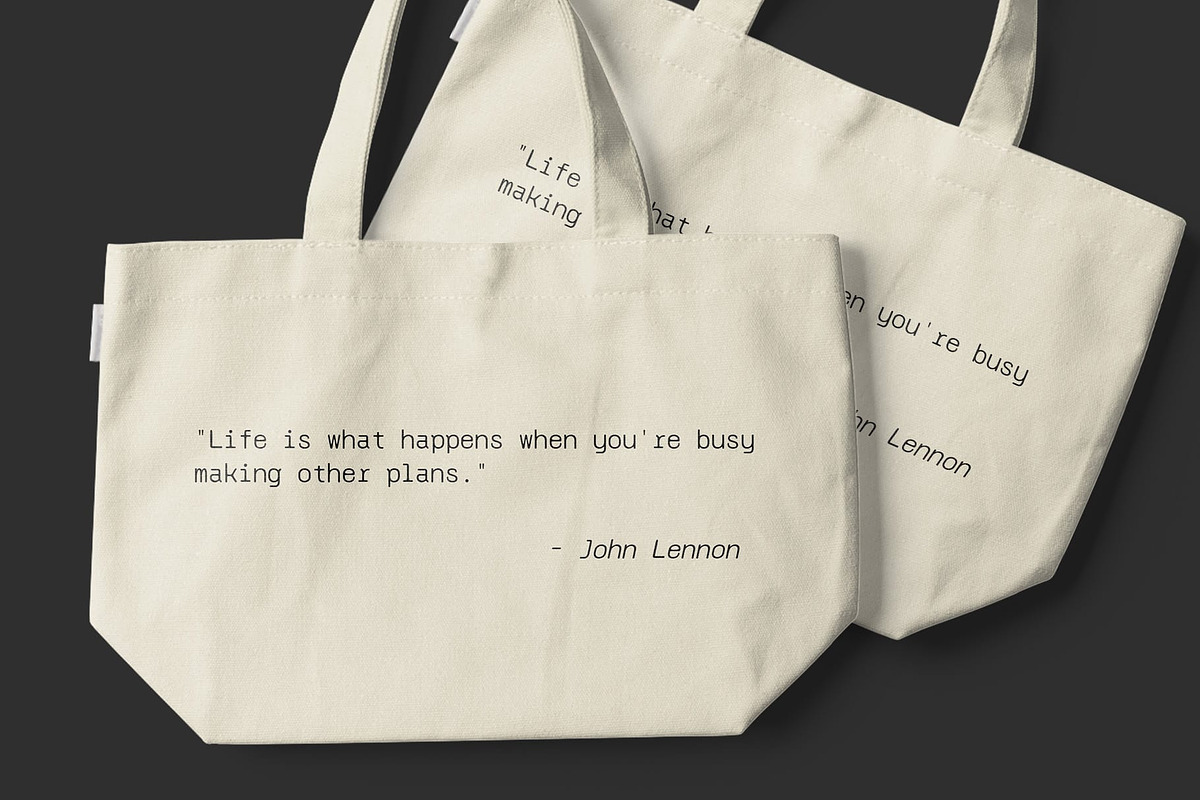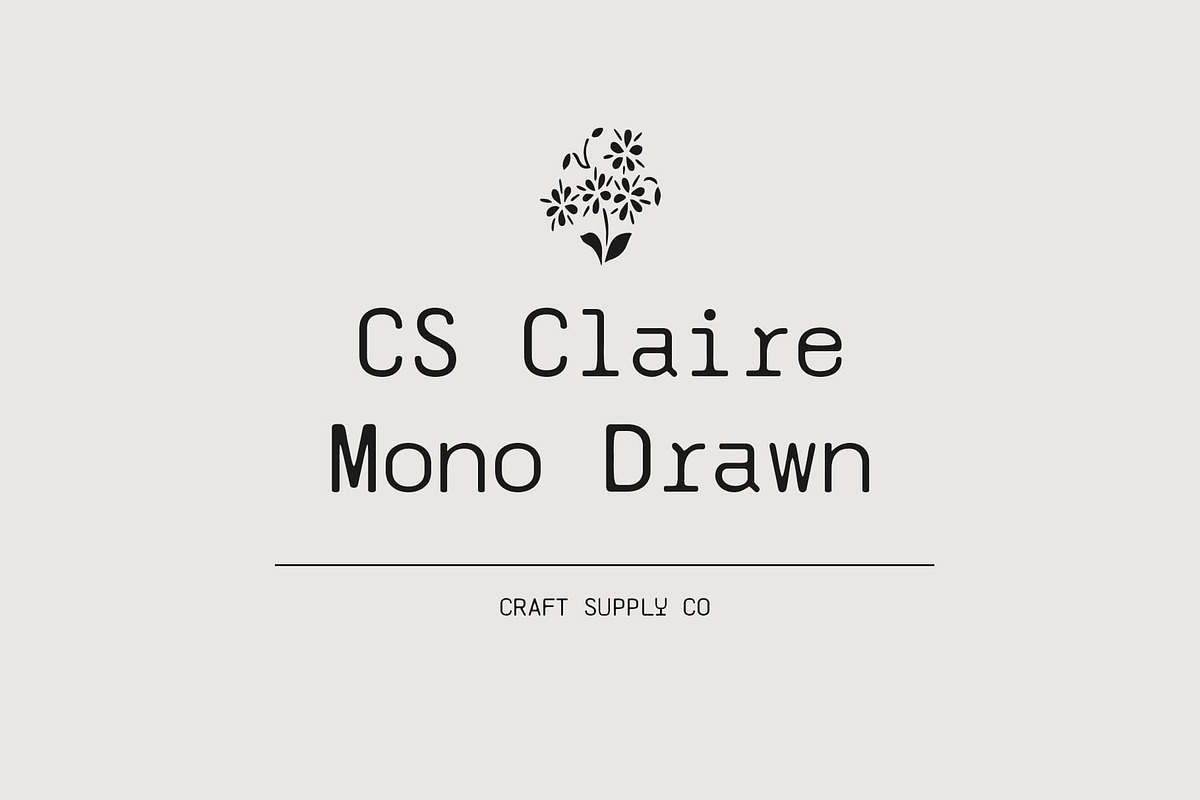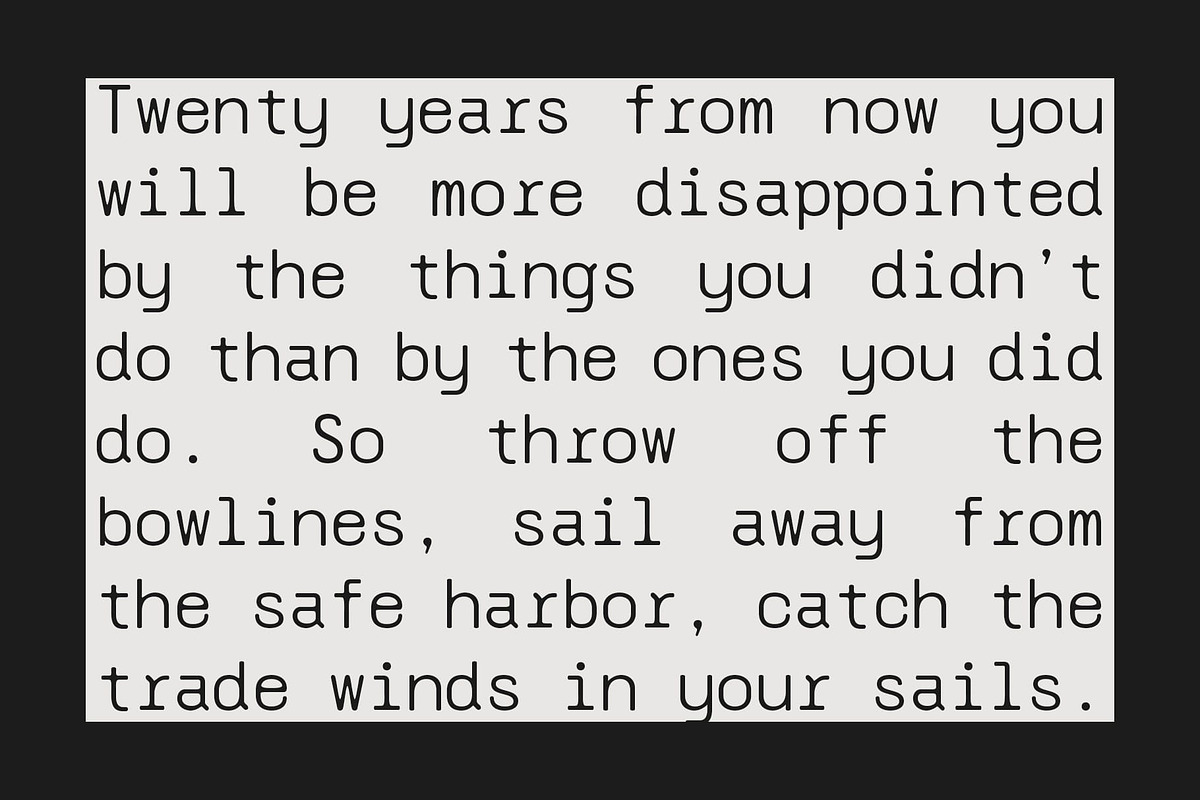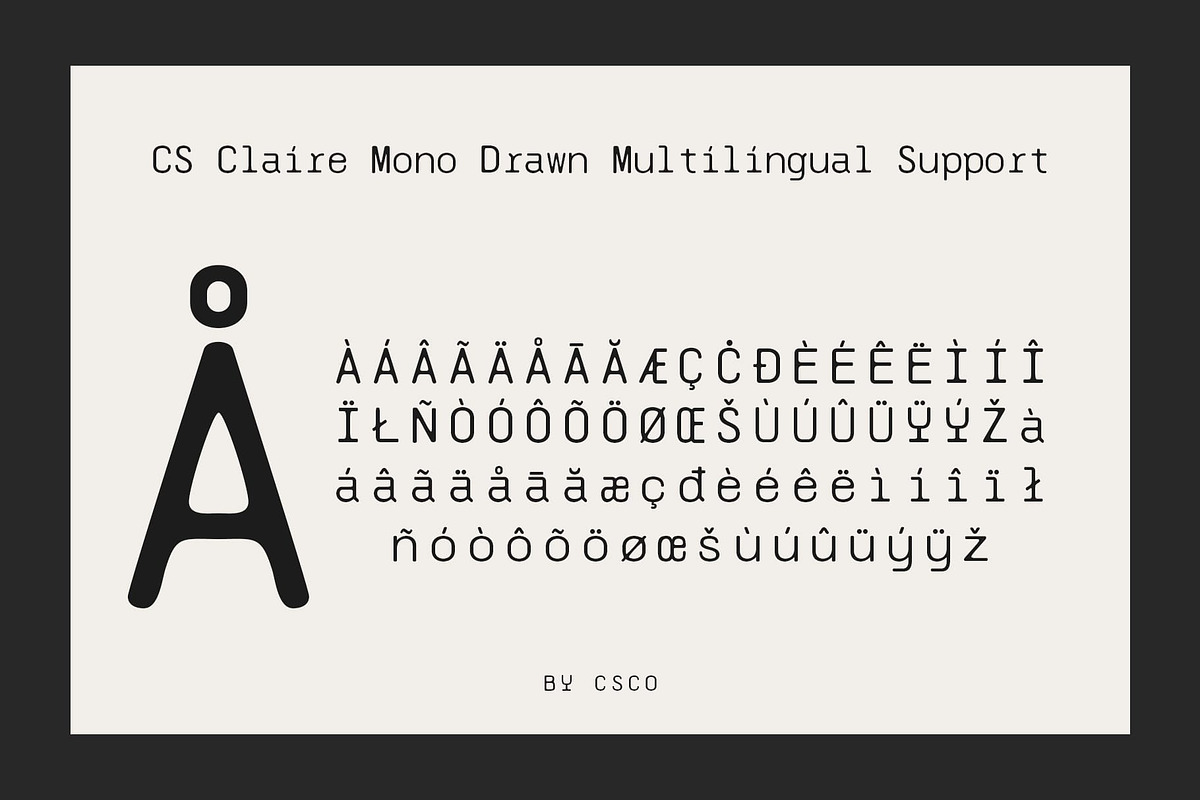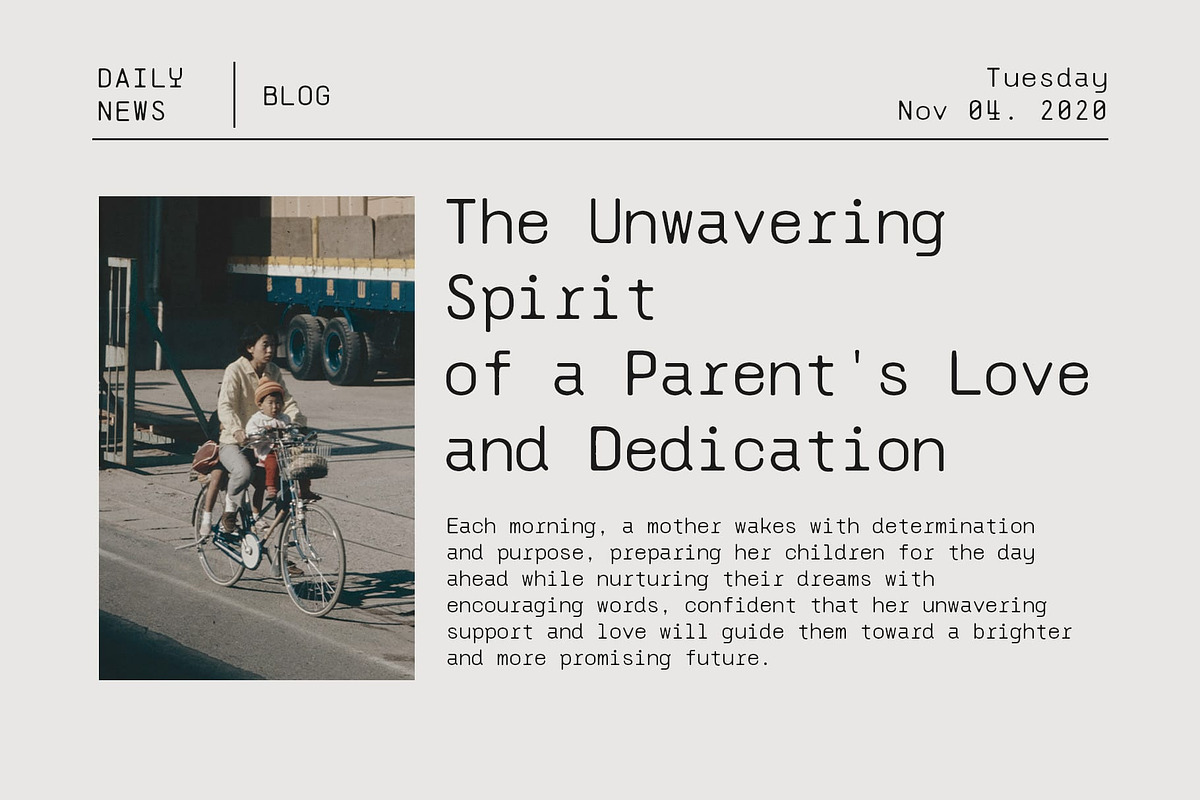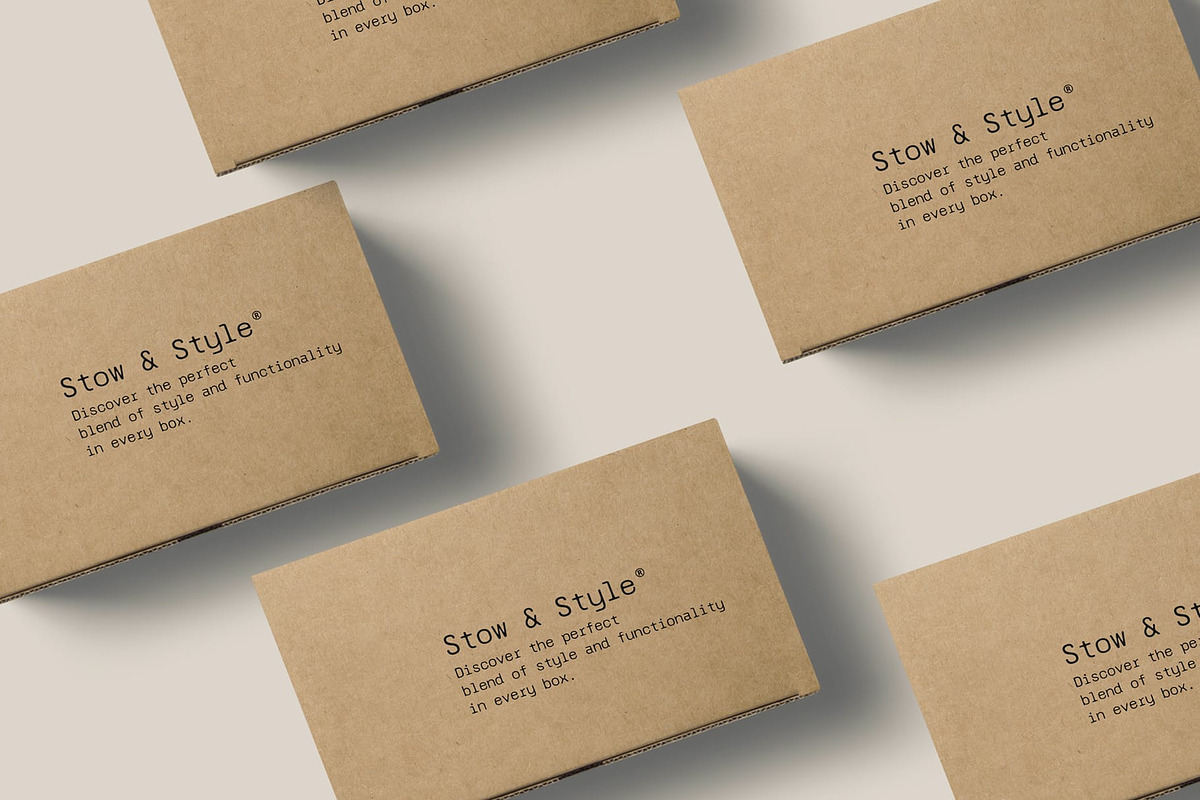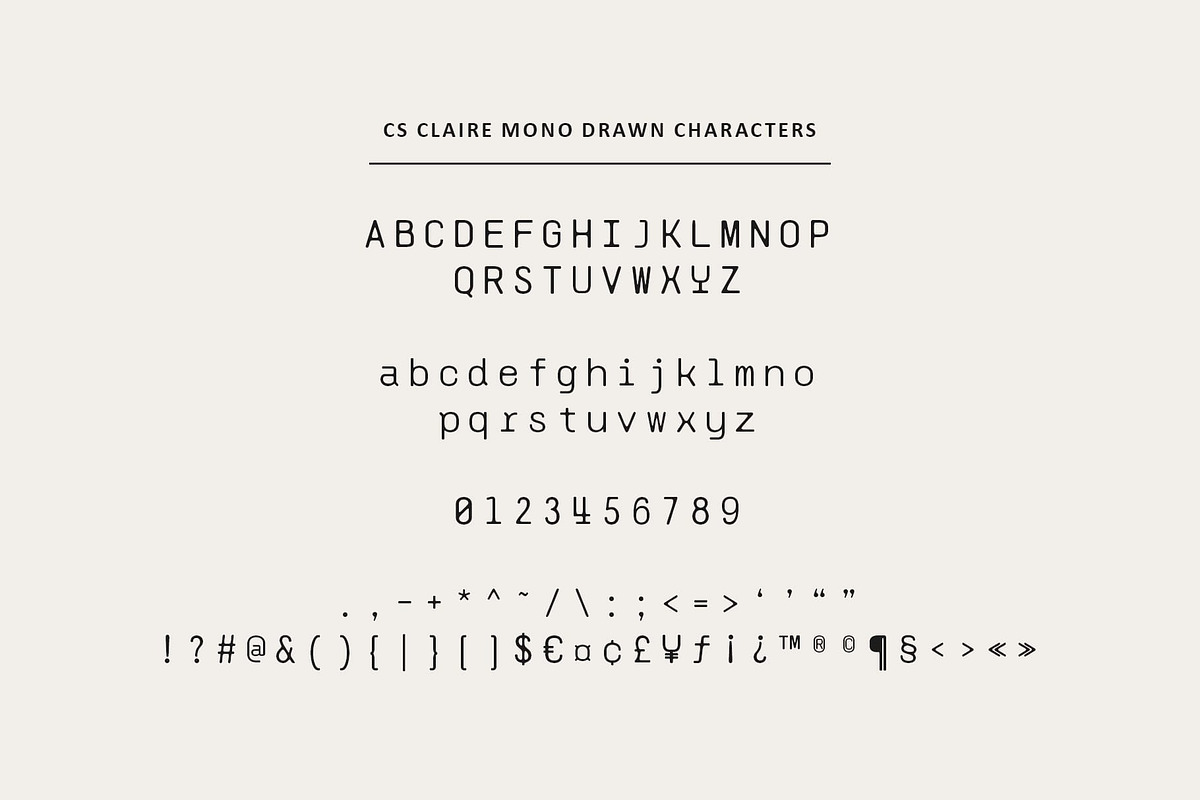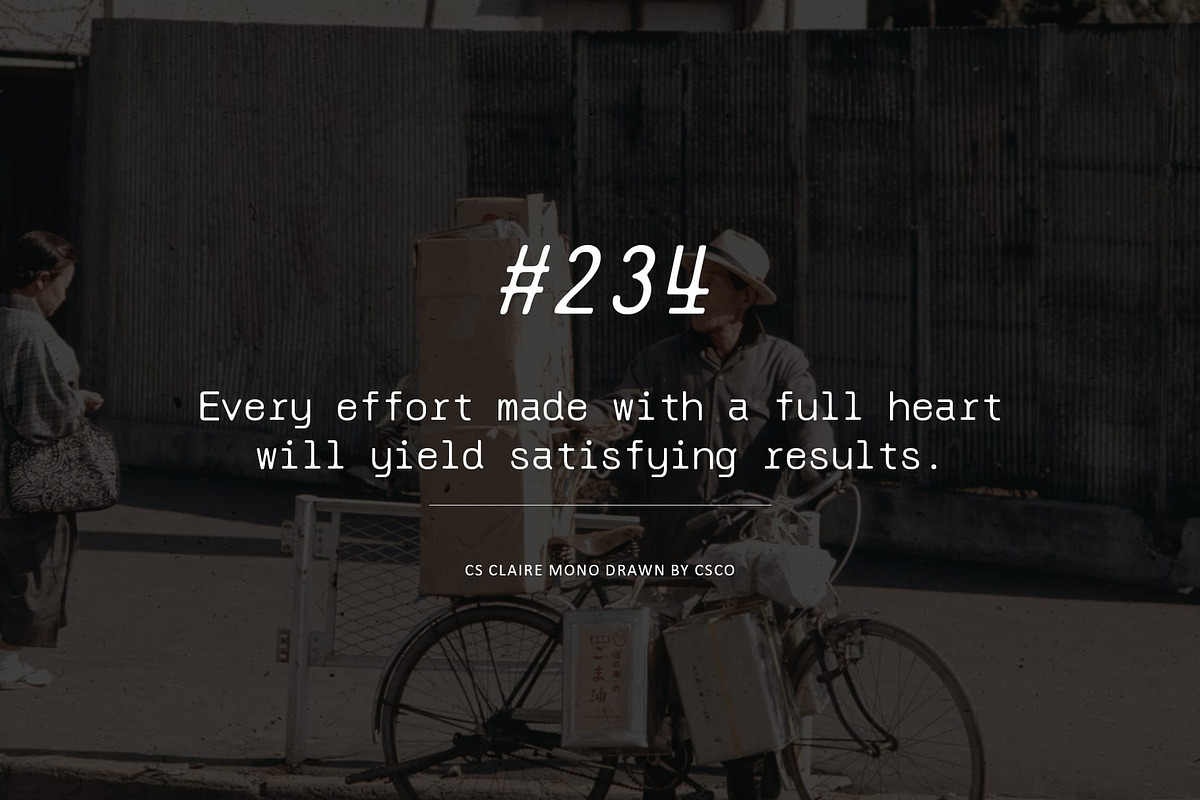
CS Claire Mono Drawn
CS Claire Mono Drawn – Precision Meets Artistry
A Unique Blend of Monospaced Structure and Handcrafted Creativity This is a monospaced sans serif font that merges the technical precision of monospaced design with the organic warmth of a drawn effect. Its clean, uniform spacing ensures readability and organization, while the hand-drawn details introduce a distinctive, artistic flair, giving the font a personal and creative touch. This balance between structure and creativity makes it an ideal choice for projects that require clarity and precision, without sacrificing individuality.
Technical Precision with a Creative Twist The monospaced nature of this font offers consistent letter spacing, making it perfect for coding, programming, and modern digital applications. However, the addition of the drawn effect adds a unique charm to each letter, creating an intriguing contrast between the technical and the handcrafted. This thoughtful design allows the font to maintain clarity and legibility while also delivering a more dynamic, creative aesthetic.
Ideal for Digital and Design Projects This drawn monospaced font is perfect for a wide range of design applications, from coding environments to modern digital platforms. Its monospaced form is highly functional for displaying information in a structured manner, while the drawn effect adds character, making it stand out in creative design contexts.